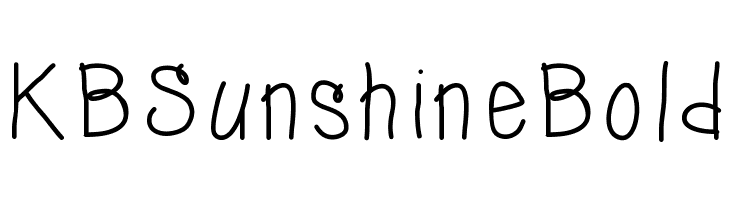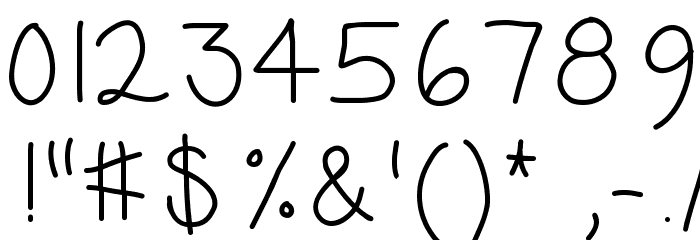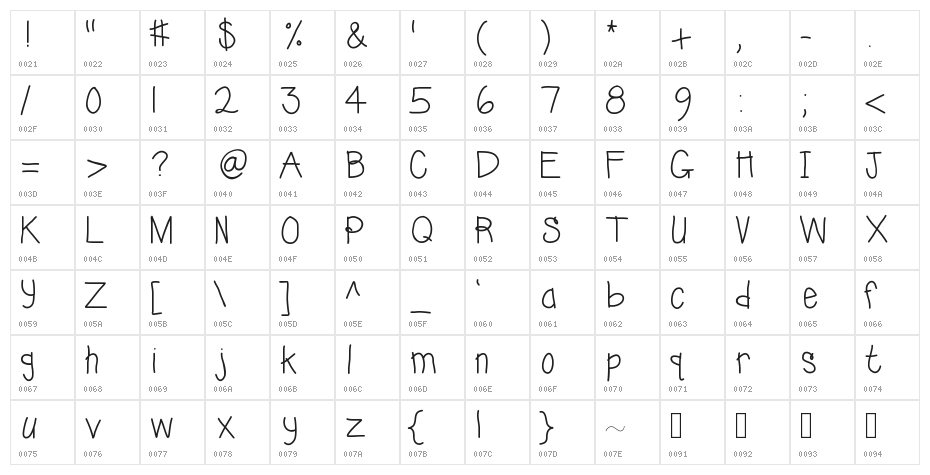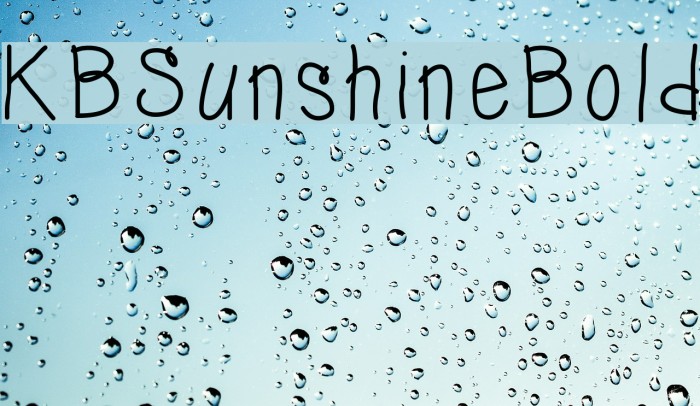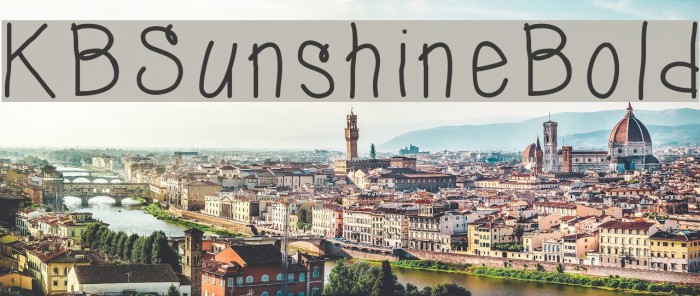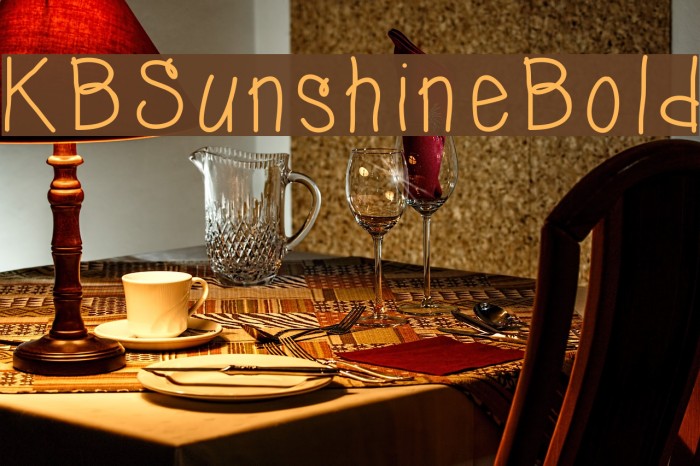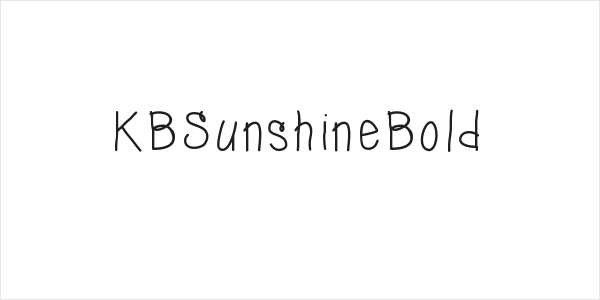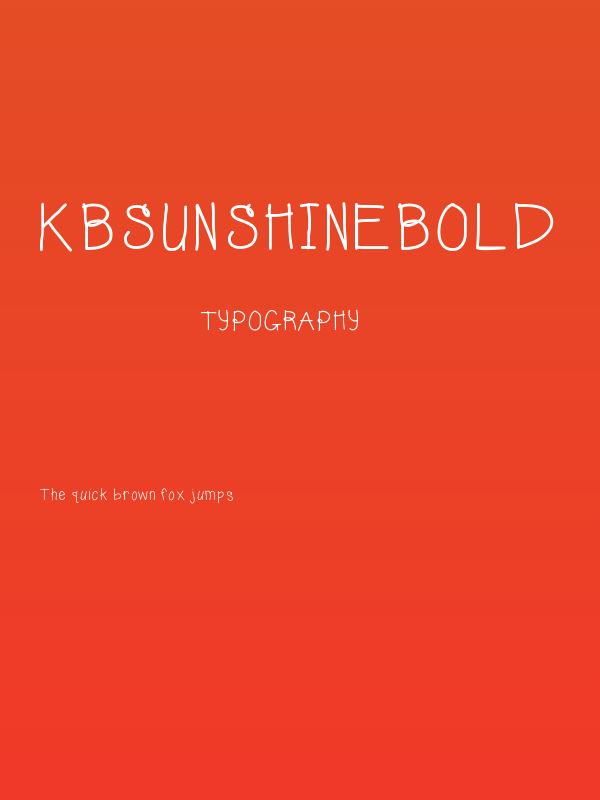
KBSunshineBold Font
KBSunshineBold Description
This font features a playful and casual handwritten style, characterized by its irregular strokes and slightly uneven baseline. The letters have a whimsical appearance, with a mix of straight and curved lines that give it a friendly and approachable feel. The uppercase letters are tall and narrow, while the lowercase letters maintain a consistent height, adding to the font's charm. The numbers and special characters follow the same playful design, making it versatile for various creative projects. The overall look is informal and relaxed, perfect for conveying a sense of fun and creativity.